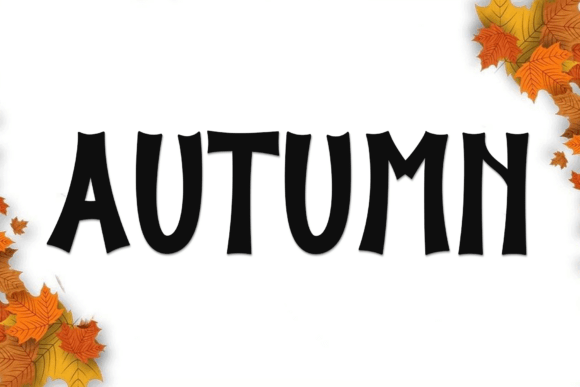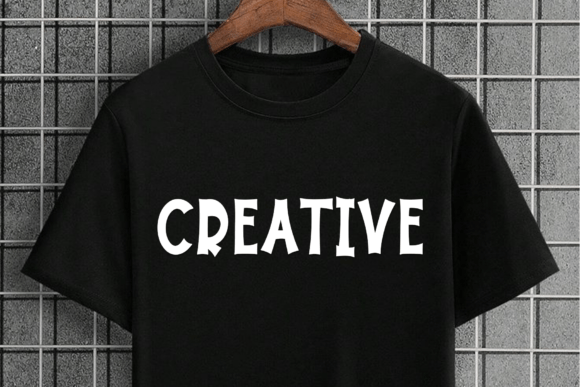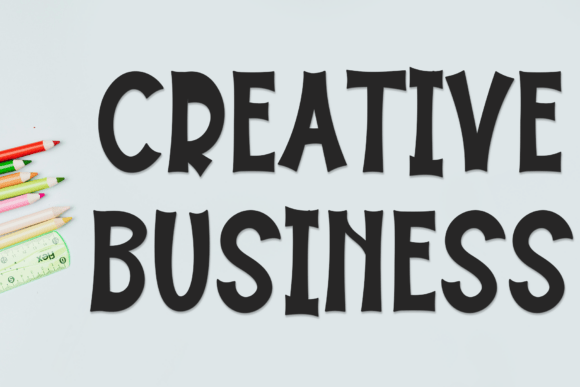
Introduction to Script Alphabet Font
Command attention with understated charm using Script Alphabet, a modern serif display font designed for clean, editorial impact.
This typeface features tall, condensed letterforms with a “sturdy-minimalist” soul, uniquely characterized by its flared terminals and subtle hand-cut irregularities With its authoritative height and professional clarity, Script Alphabet is the premier choice for independent lifestyle magazine headers, bold social commentary titles, contemporary film posters, and sophisticated “minimalist-chic” digital branding.
Key Features of Script Alphabet Font
Why Choose Script Alphabet Font?
Script Alphabet Font offers exceptional quality and versatility, making it a valuable addition to your design toolkit. Whether you’re creating for personal projects or commercial use, Script Alphabet Font delivers professional results.